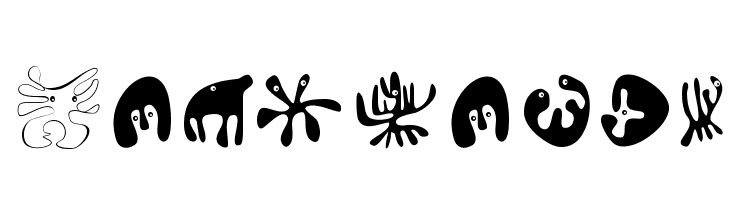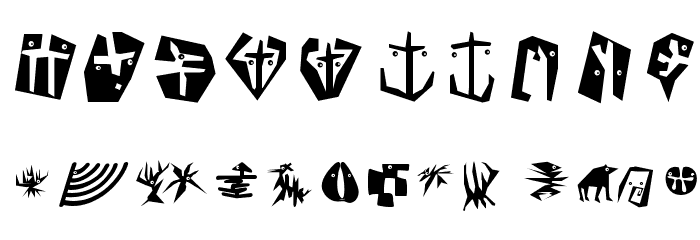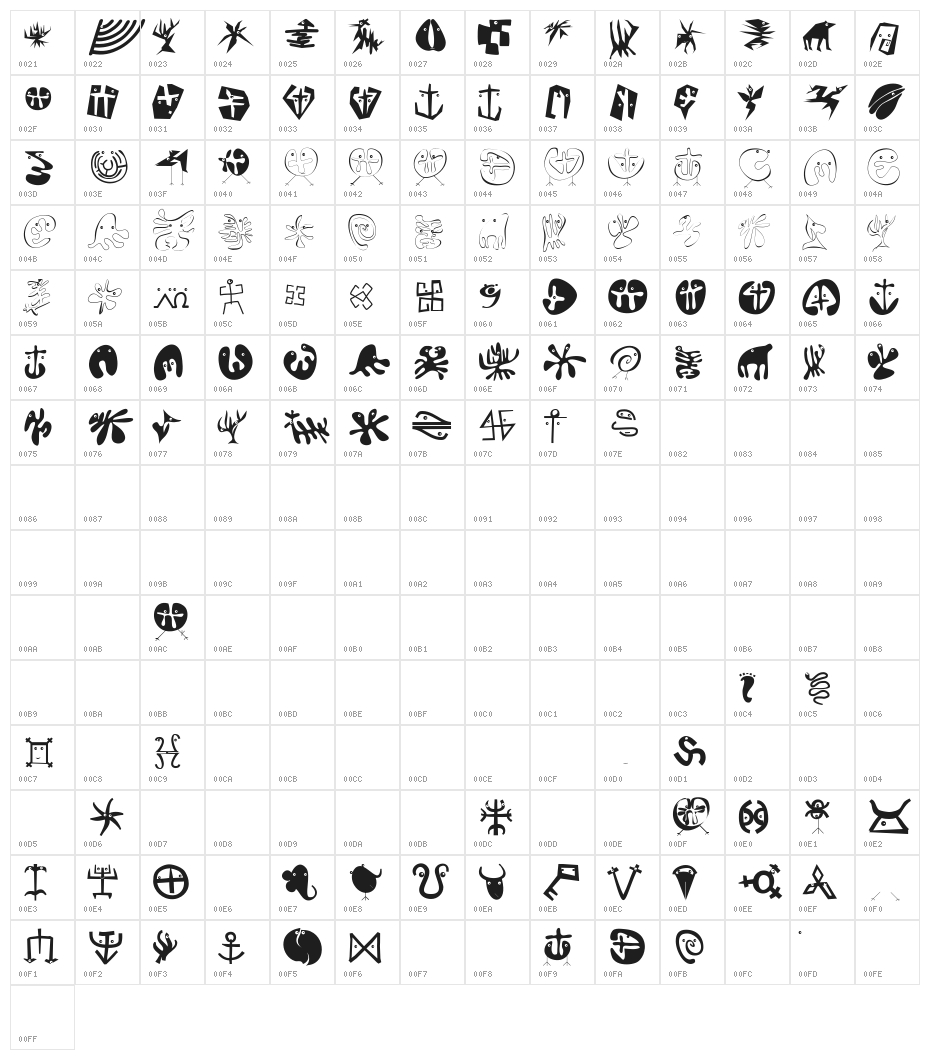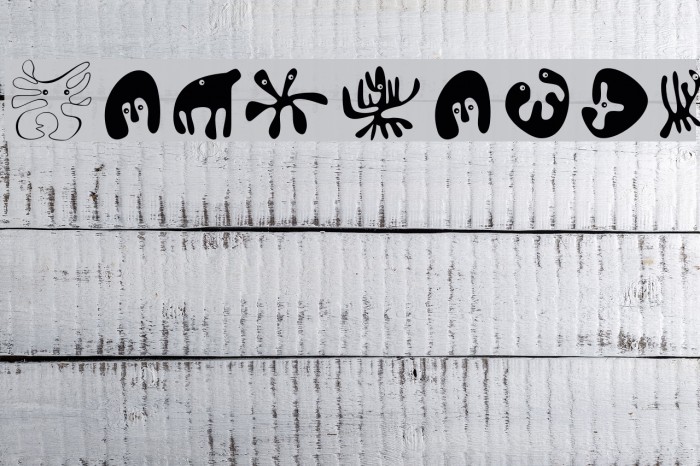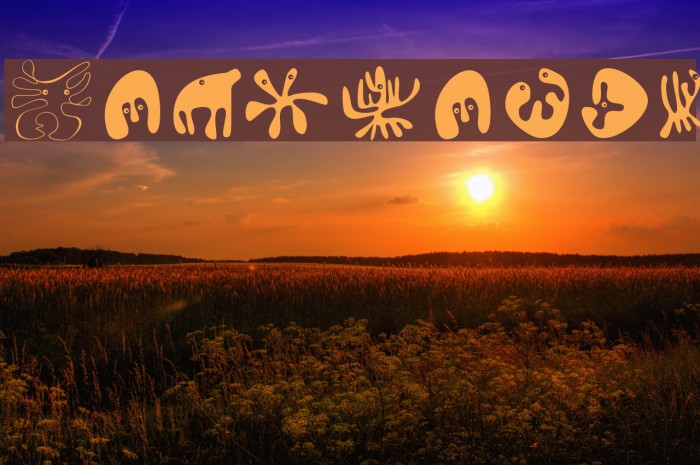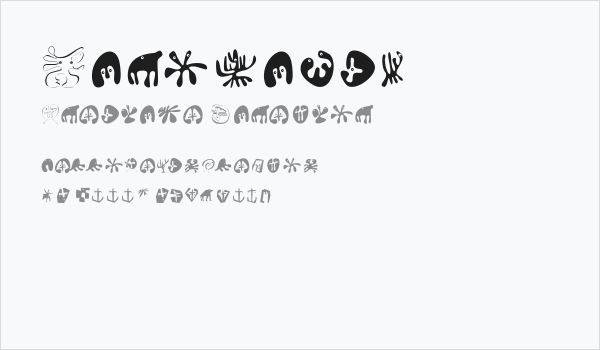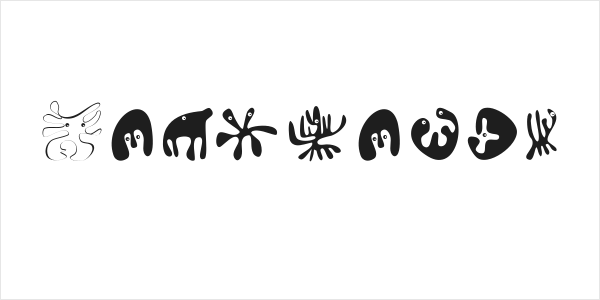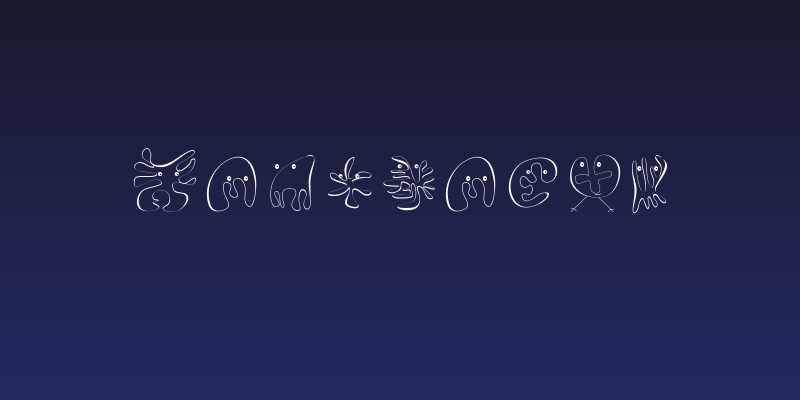
Mironikas Font
Mironikas Description
This font is a highly decorative and artistic typeface that features whimsical and abstract shapes resembling animals and nature-inspired forms. Each character is uniquely crafted with playful and imaginative elements, making it more of an artistic expression than a traditional font. The characters are composed of bold, solid shapes with varying thicknesses and intricate details, creating a visually striking appearance. The font's design is unconventional, with each letter and symbol taking on a distinct form that challenges readability but enhances its artistic appeal. This typeface is ideal for creative projects where visual impact and artistic expression are prioritized over legibility.
| Use Case | Logos, Art projects, Posters |
| Proposed Projects | Ideal for art projects, creative posters, unique branding, and decorative purposes. |